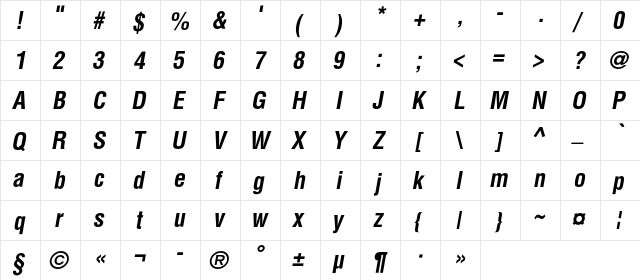
AGLettericaCondensedC Bold Italic Font Preview
Design Context for AGLettericaCondensedC Typeface
AGLettericaCondensedC offers clean, dependable letterforms without strong stylistic allegiance, making it a practical choice for designers who need flexibility. The slanted form adds forward momentum and visual energy. Its bold stroke weight gives it real presence on the page. Its narrow stance lets it pack a punch even in space-constrained designs.
Pro Tip: Use AGLettericaCondensedC for emphasis, pull quotes, and subheadings where its slanted energy can add rhythm to the layout.